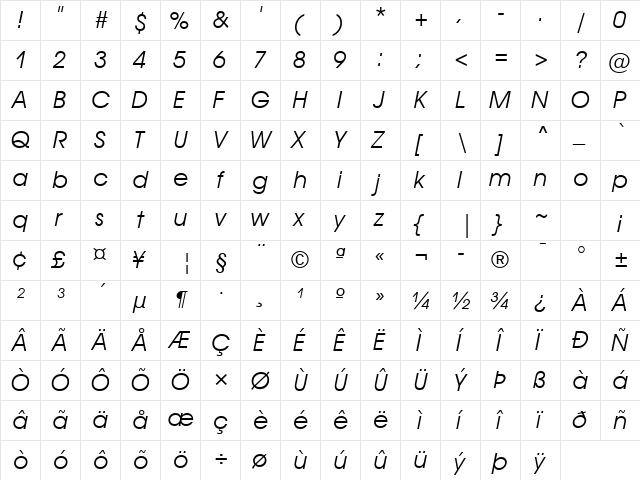
ITC Avant Garde SWA Book Oblique
Design Context for ITC Avant Garde SWA Typeface
ITC Avant Garde SWA offers clean, dependable letterforms without strong stylistic allegiance, making it a practical choice for designers who need flexibility. Its italic angle brings a sense of urgency and motion to the letterforms.
Pro Tip: Try ITC Avant Garde SWA for annotation and caption copy alongside an upright companion — the contrast in angle creates a dynamic but ordered typographic system.